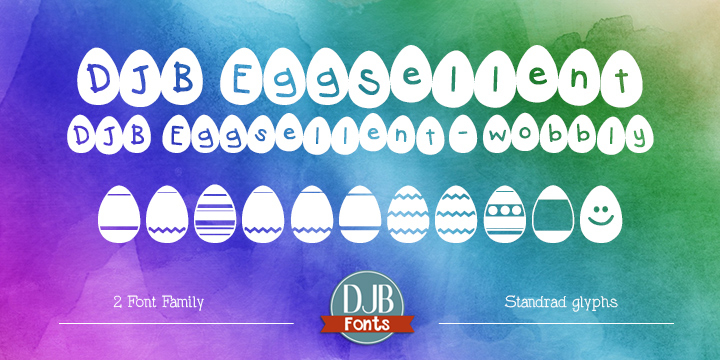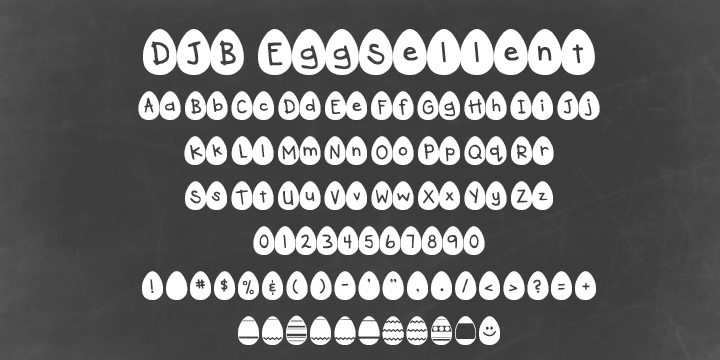
Eggsellent
Designed by Darcy Baldwin, Eggsellent is a novelty font family. This typeface has two styles and was published by Darcy Baldwin Fonts.
Your hunt for a fun, kid-centric spring font is over! An Eggscellent way to illustrate spring-centric content or Easter marketing for kids, foods, homesteading, and more! Contains alpha, 0-9, basic punctuation, and has several ‘Easter Eggs’ to be found!